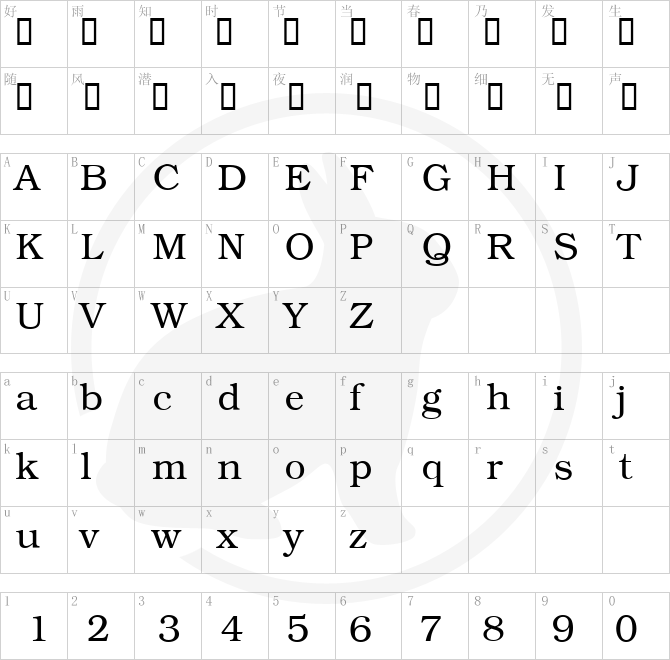
KacstOneFixed.ttf is a very beautiful artistic font, KacstOneFixed.ttf is widely used in the design and printing of various books and pictures,KacstOneFixed.ttf has a strong visual impact,KacstOneFixed.ttf is a commonly used font in newspapers, magazines and books, and is used in posters, e-commerce Poster design, store design, logo design, font design and other fields.KacstOneFixed.